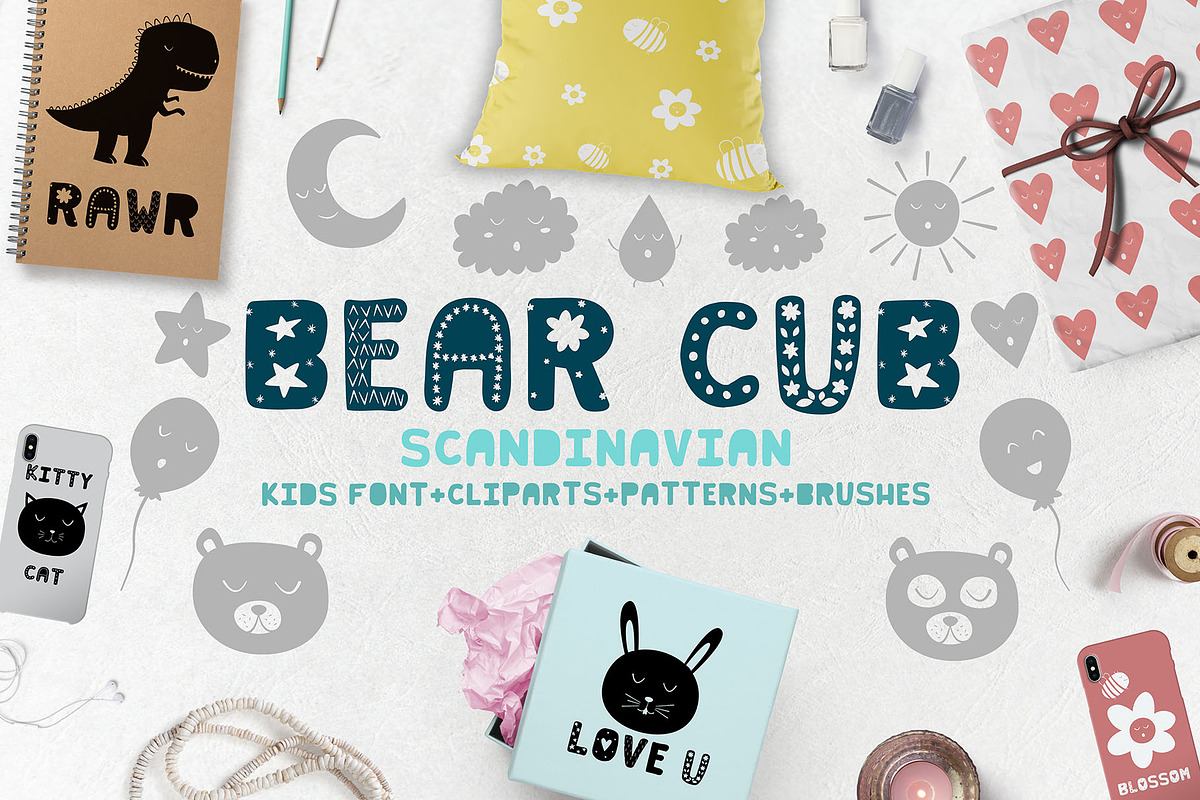
Bear Cub Scandinavian Kids Font Free Download is an adorable, minimalist typeface inspired by Nordic design and childhood wonder. With its rounded shapes, soft edges, and playful letterforms, this font is perfect for children’s books, nursery decor, educational materials, apparel, toys, and cozy branding for kids’ products.
Designed to be friendly and fun, Bear Cub brings a clean Scandinavian aesthetic that’s both modern and heartwarming. It often comes bundled with extra goodies like hand-drawn doodles, decorative elements, or alternate characters to spark even more creativity.
Whether you’re crafting for little ones or designing a brand that celebrates simplicity and joy, this font is a must-have.